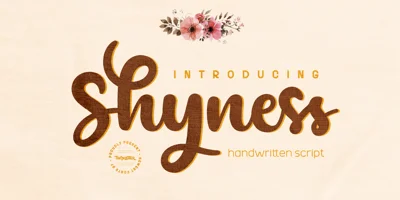
Shyness Font
Shyness Font is ideal for gentle brand identities, delicate greeting cards, subtle signage designs, soft poetry publications, tender wedding invitations, quiet café branding, intimate journal layouts, reserved personal communications, understated luxury brands, and whispered storytelling applications. This gracefully modest script brings quiet elegance and gentle sophistication to sensitive design applications.
What makes Shyness Font so exciting is its remarkable ability to capture the subtle beauty and quiet charm of reserved elegance through letterforms that whisper rather than shout, creating an atmosphere of intimate refinement and gentle sophistication. The font features delicately crafted characters with soft proportions and understated flourishes that embody the quiet confidence and refined sensibility found in the most thoughtful and considerate communications. Its distinctive characteristics include gentle stroke variations, modest baseline shifts, and reserved spacing that mirror the careful consideration and thoughtful approach that defines truly refined taste and sophisticated restraint. The font's inherently gentle personality and ability to create intimate connections make Shyness Font perfect for brands and communications seeking to convey sensitivity, thoughtfulness, and the quiet strength that comes from genuine authenticity.
The Shyness Font family includes multiple tender variations: Light, Regular, Medium, and Delicate versions with gentle character sets. The comprehensive character collection encompasses complete Latin alphabet support with subtle alternates, modest numerals, quiet punctuation marks, soft symbols, and understated decorative elements that enhance gentle messaging. Professional features include contextual alternates that maintain subtle elegance, tender spacing that creates intimate rhythm, delicate character construction that ensures quiet sophistication, and gentle details that add authentic sensitivity without overwhelming the message or compromising the understated beauty that defines refined communication.
Whether you're creating intimate brand materials, sensitive communications, or thoughtful projects that honor quiet moments and gentle emotions, Shyness Font provides the gracefully modest typography that speaks to audiences seeking authenticity, sensitivity, and the quiet beauty found in understated elegance. Its exceptional gentleness makes it perfect for wellness brands, intimate venues, and thoughtful organizations where sensitivity and emotional intelligence are essential for genuine connection and trust, while its refined restraint ensures memorable impact that resonates with audiences who appreciate subtlety and depth. The font's combination of quiet strength and professional elegance makes it invaluable for designers working with sensitive brands, intimate communications, and any project seeking to communicate the gentle grace, thoughtful consideration, and quiet confidence that defines true sophistication and emotional intelligence in today's often overwhelming communication landscape.